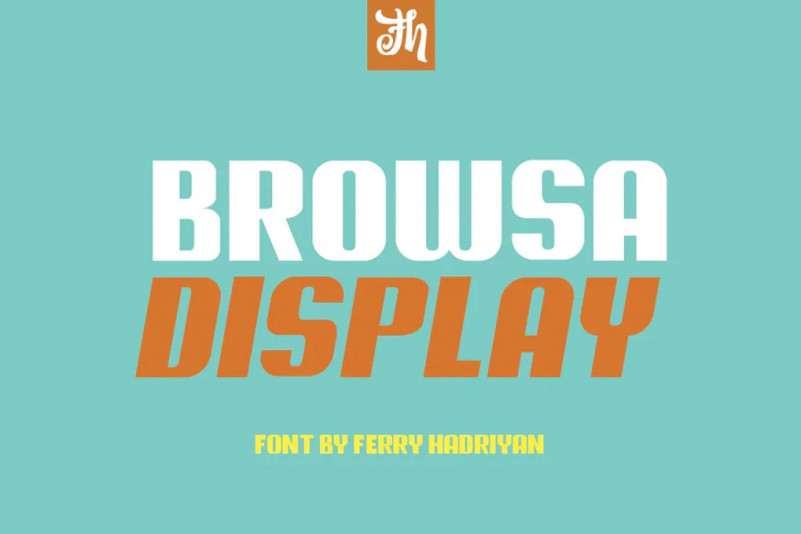
Browsa Font
Browsa is display font suitable for design, logotype, element design, wedding, event, t-shirt, logo, badges, sticker, and awesome work, etc…